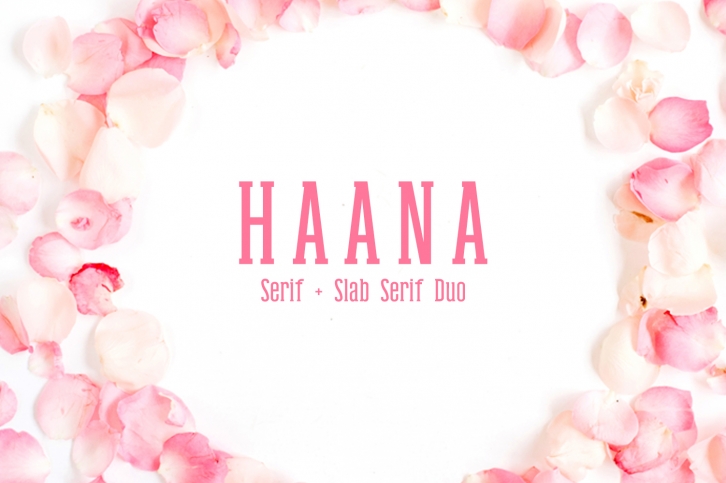
Haana Slab Serif Duo is a beautiful font that was designed by Creativetacos. It's a great choice for designers and creatives who need such a font. It was released on January 3, 2018 and the file size is 3.89 MB. Haana Slab Serif Duo may give a more youthful, expressive and casual look to your project. It is a very beautiful, refined, elegant, and high-quality font.